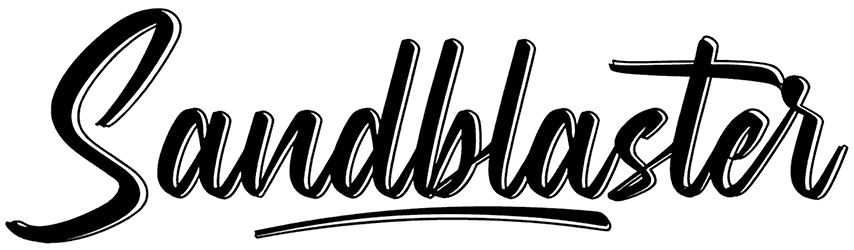
Sandblaster Font
Sandblaster is a handwritten font with a 3D-like pattern and soft letterforms. With an urban and fresh vibe, this script font can show your designs, such as banners, logotypes, handwritten quotes, and a lot more. Although Sandblaster doesn’t support punctuation and some of the numbers but yet is a distinct font for many subjects.